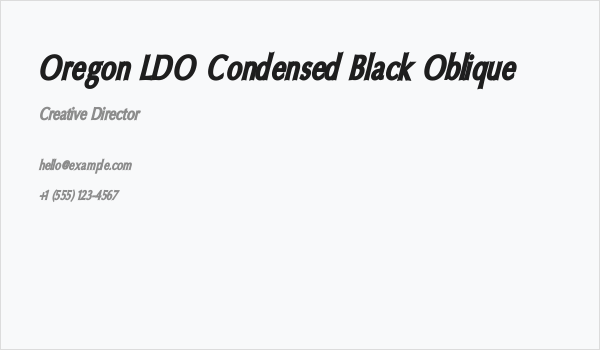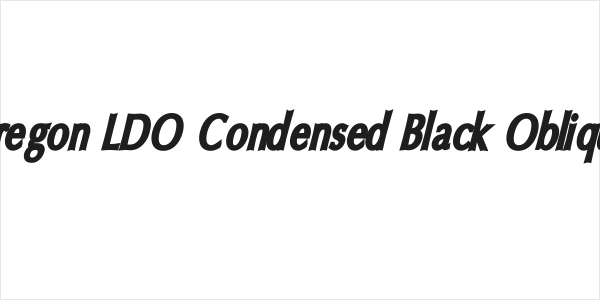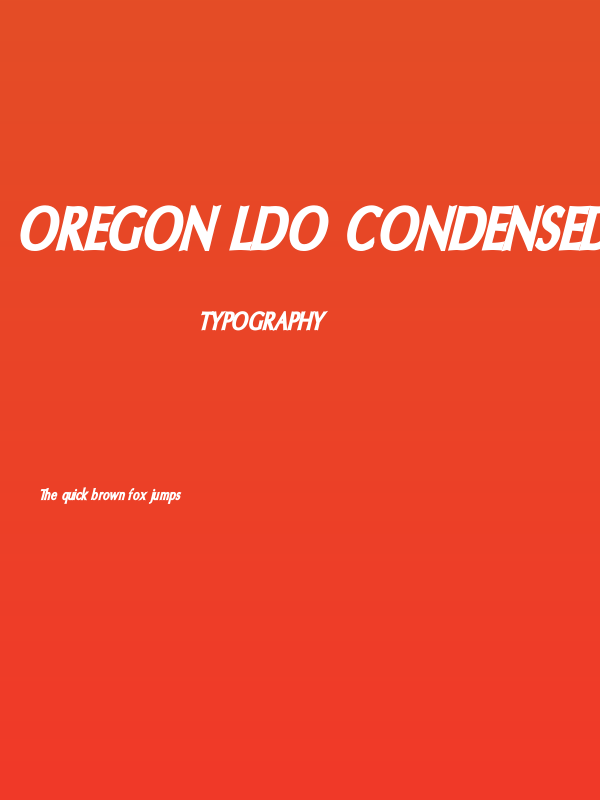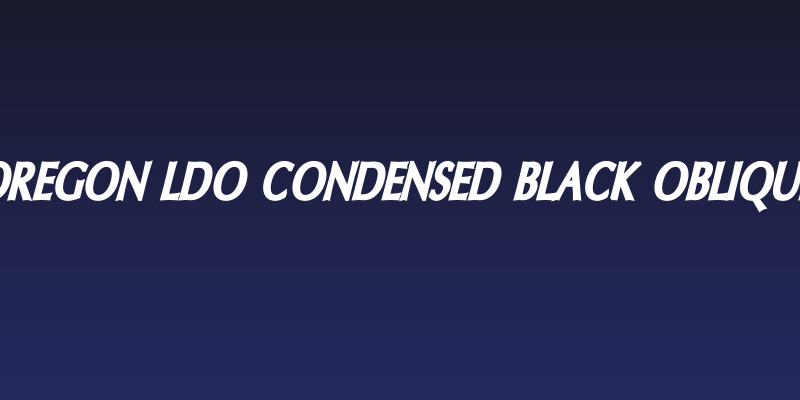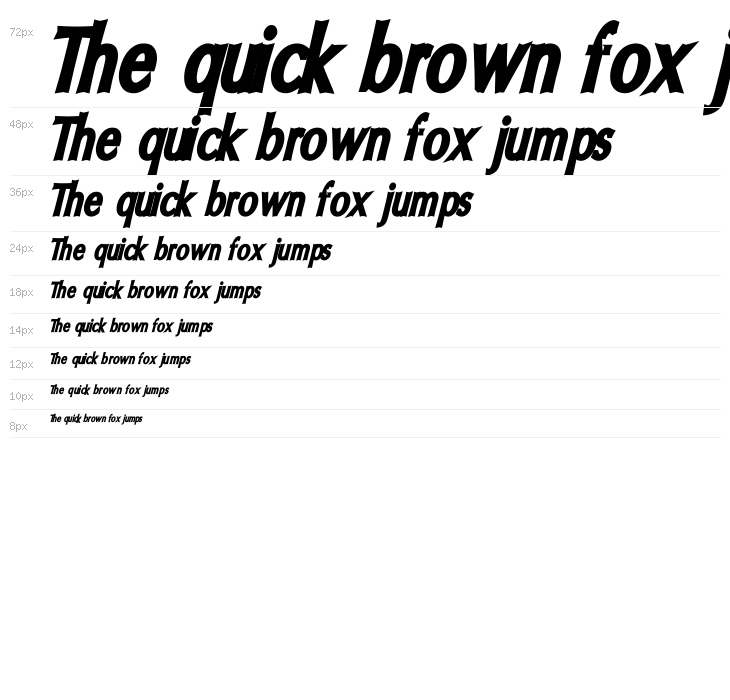
Oregon LDO Condensed Black Oblique Font
Oregon LDO Condensed Black Oblique Description
This font features a bold and dynamic style with a strong oblique slant, giving it a sense of motion and urgency. The characters are condensed, which allows for efficient use of space while maintaining legibility. The strokes are thick and consistent, contributing to a robust and impactful appearance. Its sharp angles and clean lines make it suitable for modern and edgy designs. The font includes a full set of uppercase and lowercase letters, numerals, and a variety of special characters, making it versatile for various applications.
Proposed ProjectsIdeal for headlines, posters, branding, and advertising where a strong and impactful presence is needed.